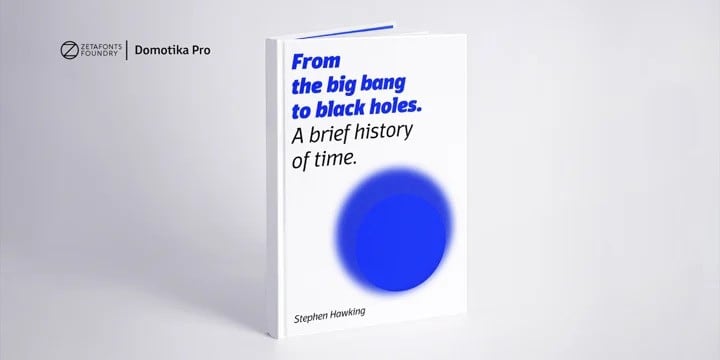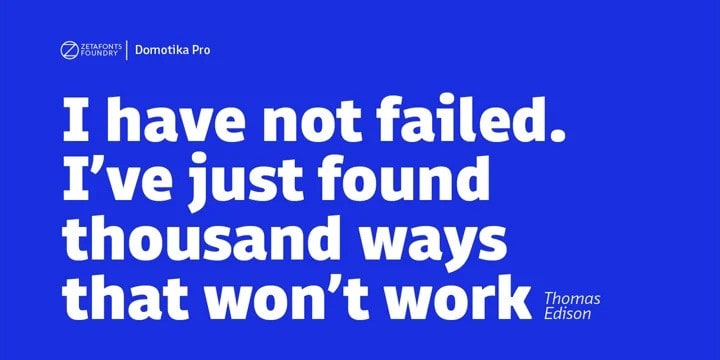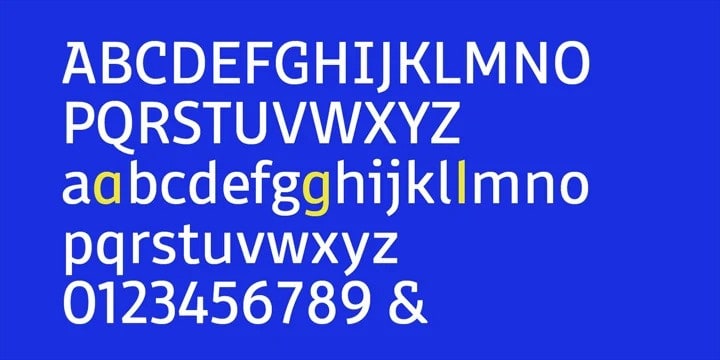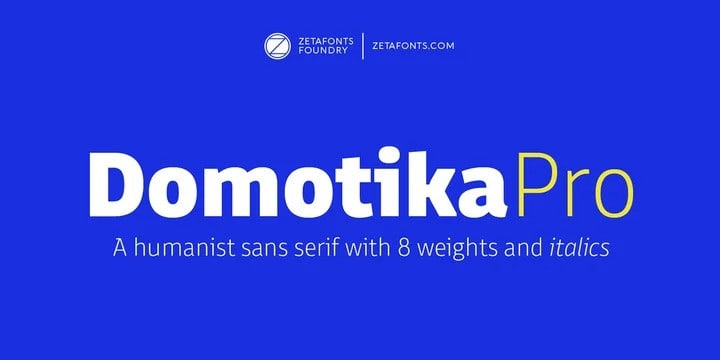
Domotika Pro Sans Serif Font
Hello friend. Domotika Pro Sans Serif Font is a classic and timeless sans serif Typeface inspired by architectural practice, with a pragmatic attention to functionality that doesn’t forget aesthetics. Its design juxtaposes the open humanist letterforms to slight calligraphic curve endings that marries perfect readability to expressive design. The name itself of the typeface is an homage to the science of living comfortably, with its reference to “domotics”, robotic technology for use in the home.
In 2021 Andrea Tartarelli, who originally designed Domotika italics, completely reworked the original type family adding over five hundred glyphs to the original set and extending the language coverage to include over two hundred languages using latin, Cyrillic and greek alphabets. Open type features have been also expanded, including positional numbers, small caps, ligatures, contextual alternates and stylistic sets, as well as tabular, lining and old-style numerals.